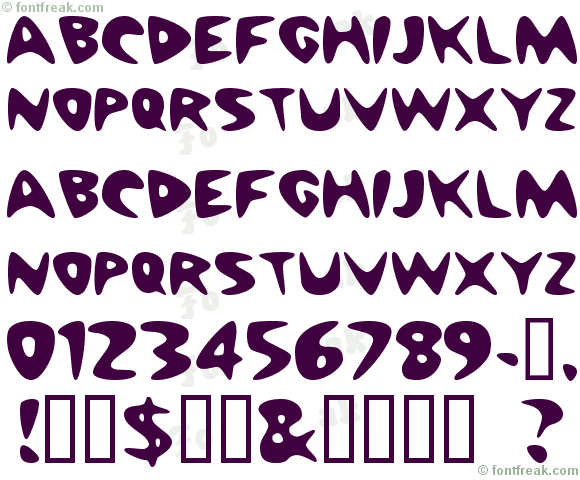
Cheap Motel
About Cheap Motel
The Cheap Motel font by Marty Bee is a captivating display typeface that exudes a unique, playful charm. As a decorative font, it captures the essence of retro motels and roadside attractions, making it a standout choice for various design projects. The font features a bold stroke weight with a consistent look across its letters, giving it a sturdy and inviting presence. The slight irregularities in character shapes and the whimsical curves add a touch of personality, while the spacing is well-balanced, ensuring legibility without sacrificing style.
This font is particularly well-suited for use cases that call for a fun and nostalgic vibe. It shines in projects like vintage-inspired restaurant menus, quirky promotional materials for local businesses, or eye-catching movie posters that aim to evoke a sense of adventure. Additionally, Cheap Motel is an excellent choice for graphic designers looking to create unique branding elements that stand out in a crowded marketplace. Small business owners and content creators can also leverage this font to craft engaging social media graphics or playful event invitations that capture attention.
What sets the Cheap Motel font apart is its ability to evoke nostalgia while remaining versatile for various applications. Its distinctive style can transform ordinary text into something memorable, making it an essential addition to any font library. For those interested in enhancing their design projects, the Cheap Motel font free download offers a delightful opportunity to explore creativity without constraints.